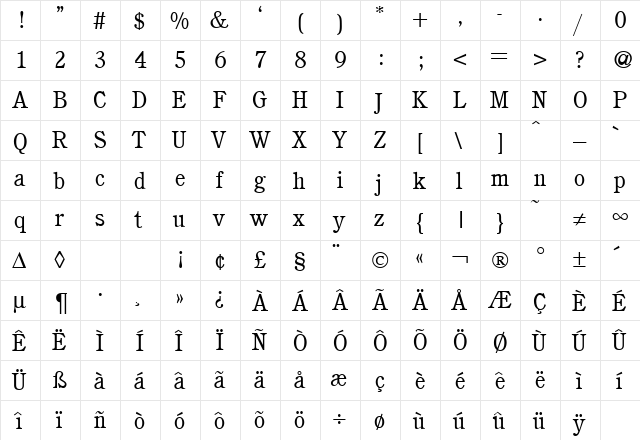
CushingNova Regular
Design Context for CushingNova Typeface
CushingNova offers clean, dependable letterforms without strong stylistic allegiance, making it a practical choice for designers who need flexibility.